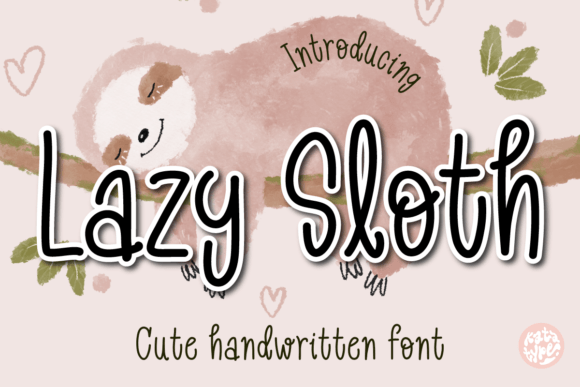
Prepare yourself to dive into the world of charming fonts with Lazy Sloth, a delightful creation from the renowned Katatype foundry. This enthralling script font oozes a relaxed and effortless style, capturing the essence of easygoing vibes. Its hand-drawn characters dance across your screen, evoking a sense of playfulness and whimsy.
With Lazy Sloth, transform your designs into captivating journeys. Its casual and relaxed appearance makes it an ideal companion for crafting heartfelt greeting cards, creating captivating social media posts, and establishing a unique brand identity. Whether you're an artist, a designer, or simply a lover of beautiful typography, Lazy Sloth will elevate your creations to new heights.
Picture this: you're working on a poster that demands attention. You're seeking a font that exudes both playfulness and professionalism. Lazy Sloth emerges as your savior, its carefree lines intertwining with a touch of sophistication. Your poster becomes a vibrant symphony of colors and words, captivating every viewer's gaze and leaving an indelible mark in their memory.
Or perhaps you're designing a t-shirt that captures the essence of summer. You want a font that reflects the carefree spirit of sandy beaches and sun-kissed skin. Lazy Sloth steps into the spotlight, its laid-back style adding a touch of coastal charm to your design. The result? A t-shirt that captures the essence of laid-back living and invites the wearer to embrace the joys of summer.
Lazy Sloth is more than just a font; it's a gateway to creative expression. It's a font that encourages you to think outside the box, to embrace your unique personality, and to let your imagination run wild. With Lazy Sloth, you not only create designs—you create experiences that touch hearts and leave lasting impressions.
So, embark on this adventure with Lazy Sloth. Let its easygoing charm infuse your designs with a sense of joy and whimsy. As you explore the endless possibilities of this remarkable font, you'll discover a new world of creativity waiting to be unleashed.